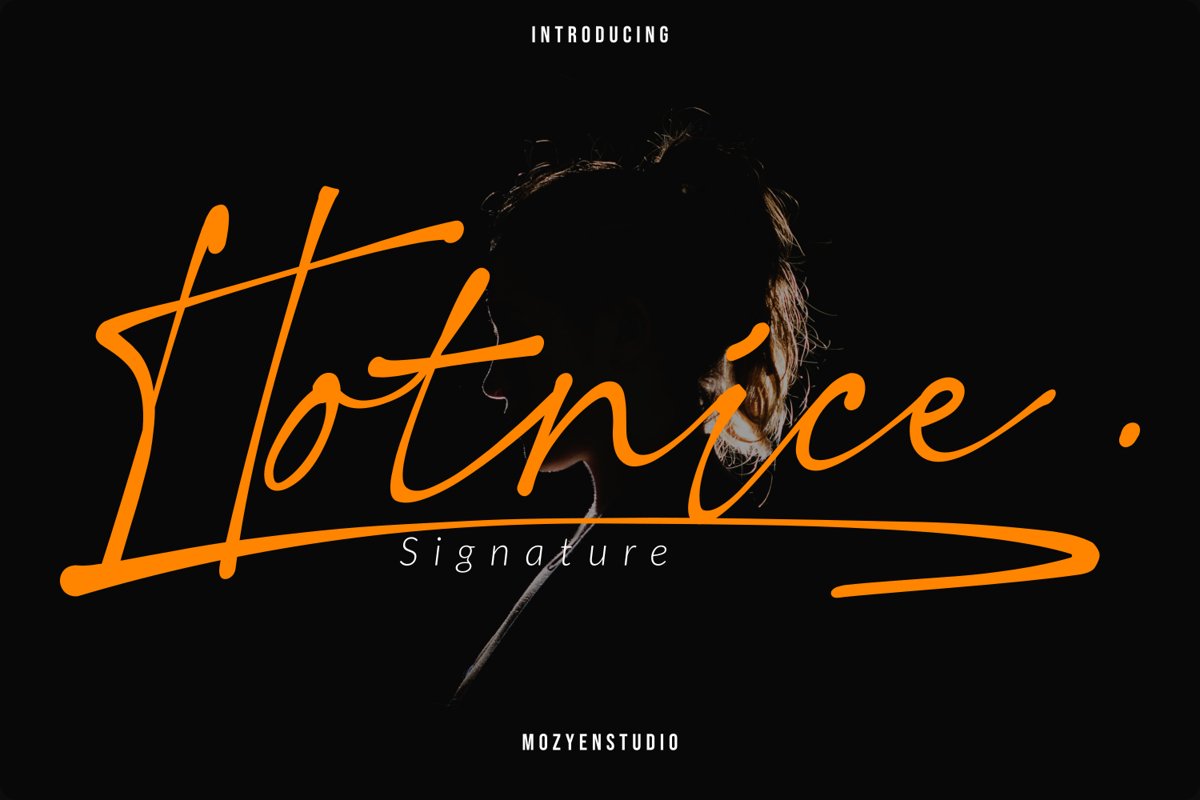
Hot Nice
Hotnice
Happily born Daughter of the family Mozyen studio. She is the “Hotnice”
Signature Font. “Hotnice” can accompany your design so that it looks
attractive and extraordinary. “Hotnice” Signature Font, you can use in
various designs such as weddings, beautiful words, t-shirt designs,
Hot Nice